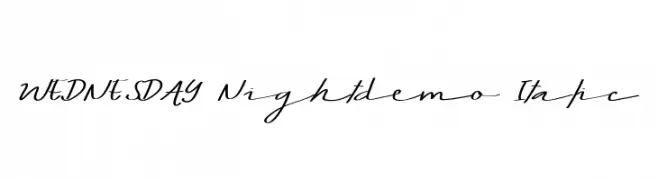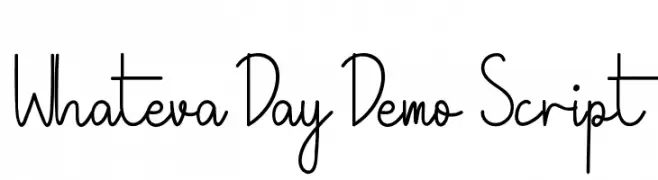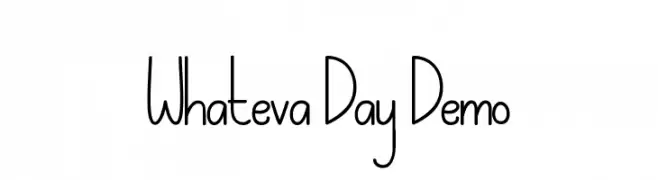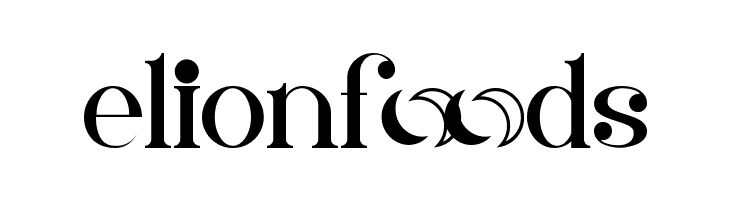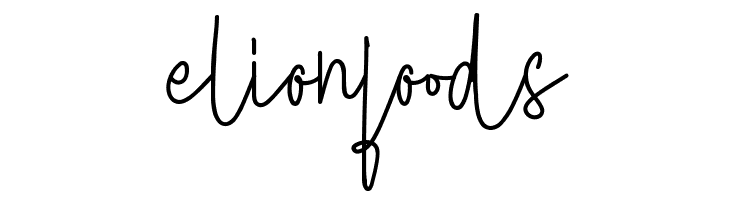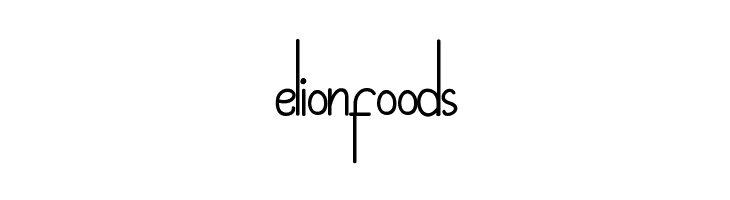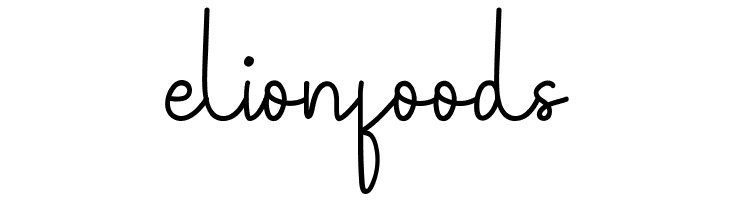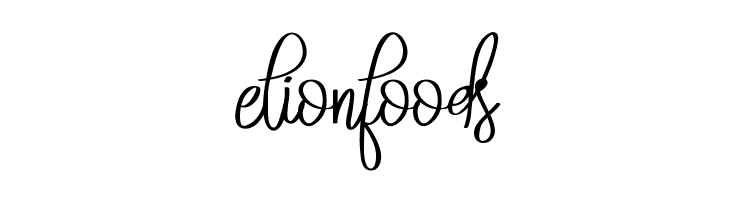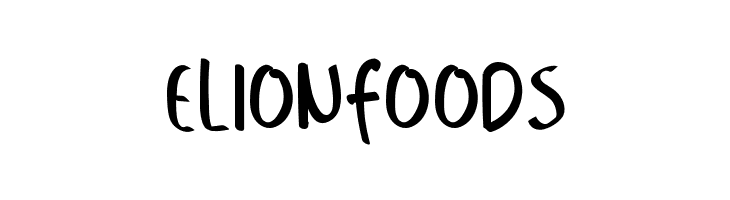
• Latterday
An elegant script font with fluid, cursive strokes and a refined appearance.
• Welcome Christmas
A festive, decorative font with Christmas-themed patterns and bold, rounded characters.
• Goodday
An elegant, flowing script font with interconnected letterforms.
• Saturday Moon Demo
A high-contrast serif font with elegant, sharp serifs and a modern twist.
• Saturday Moon Demo Script
A playful, handwritten script font with a casual and friendly style.
• Whateva Day Demo
A playful, hand-drawn font with tall, narrow letters and quirky details.
• Whateva Day Demo Script
A playful and whimsical script font with flowing, interconnected letterforms.
• Badass Holliday Demo
A flowing, elegant script font with smooth, cursive letterforms and artistic flourishes.
• Badass Holliday Demo Sans
A bold, playful handwritten font with a casual and modern style.
• WEDNESDAY Nightdemo Italic
A dynamic and elegant script font with flowing, cursive letterforms.